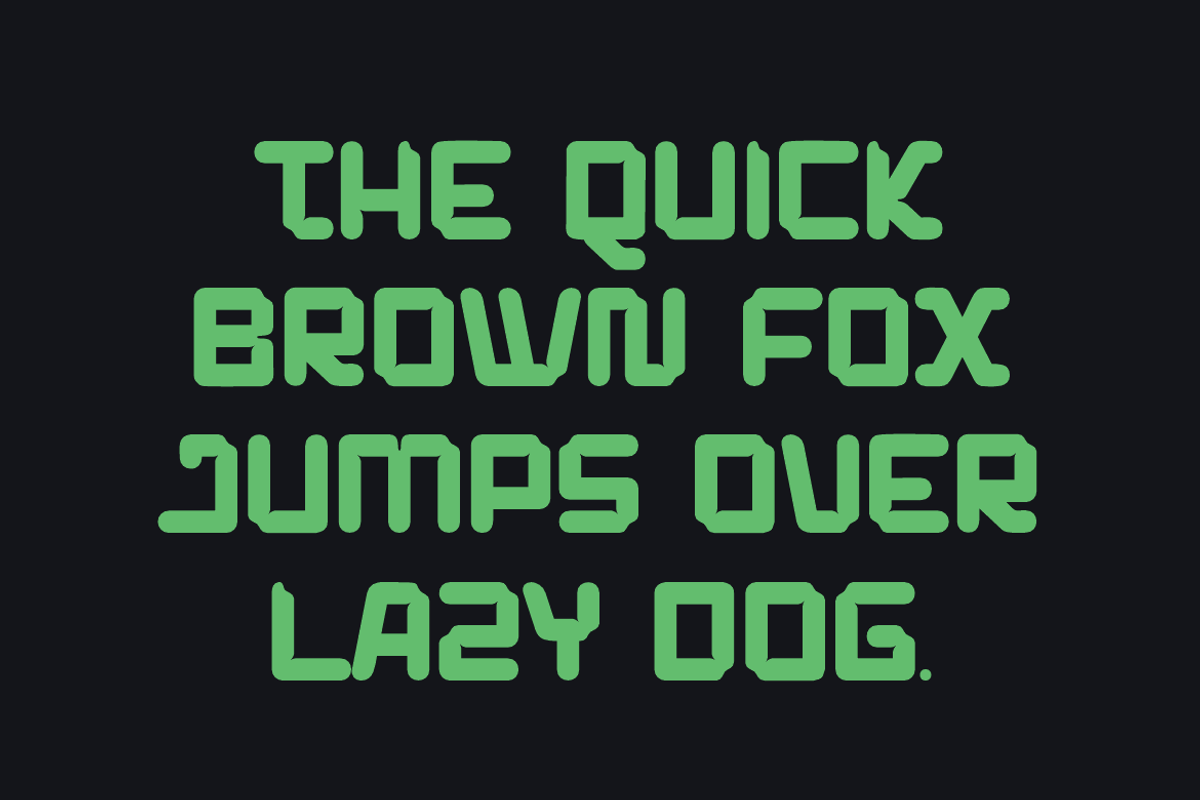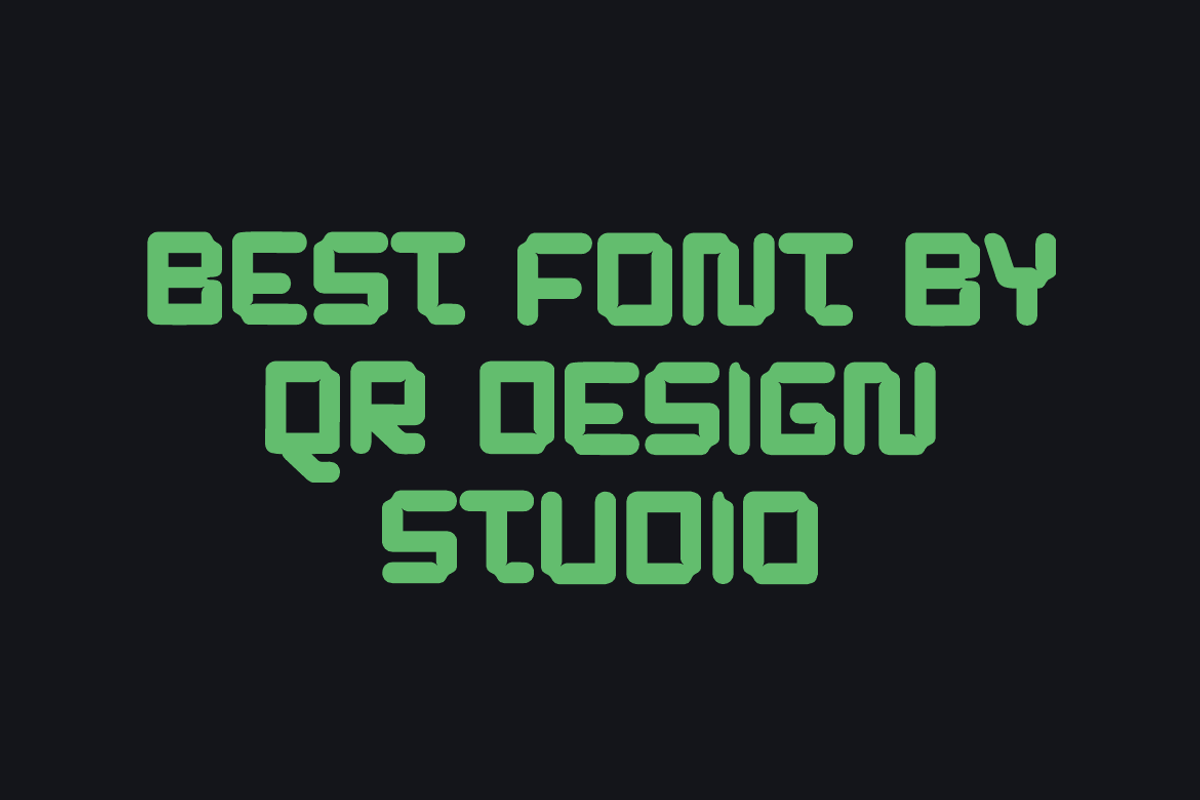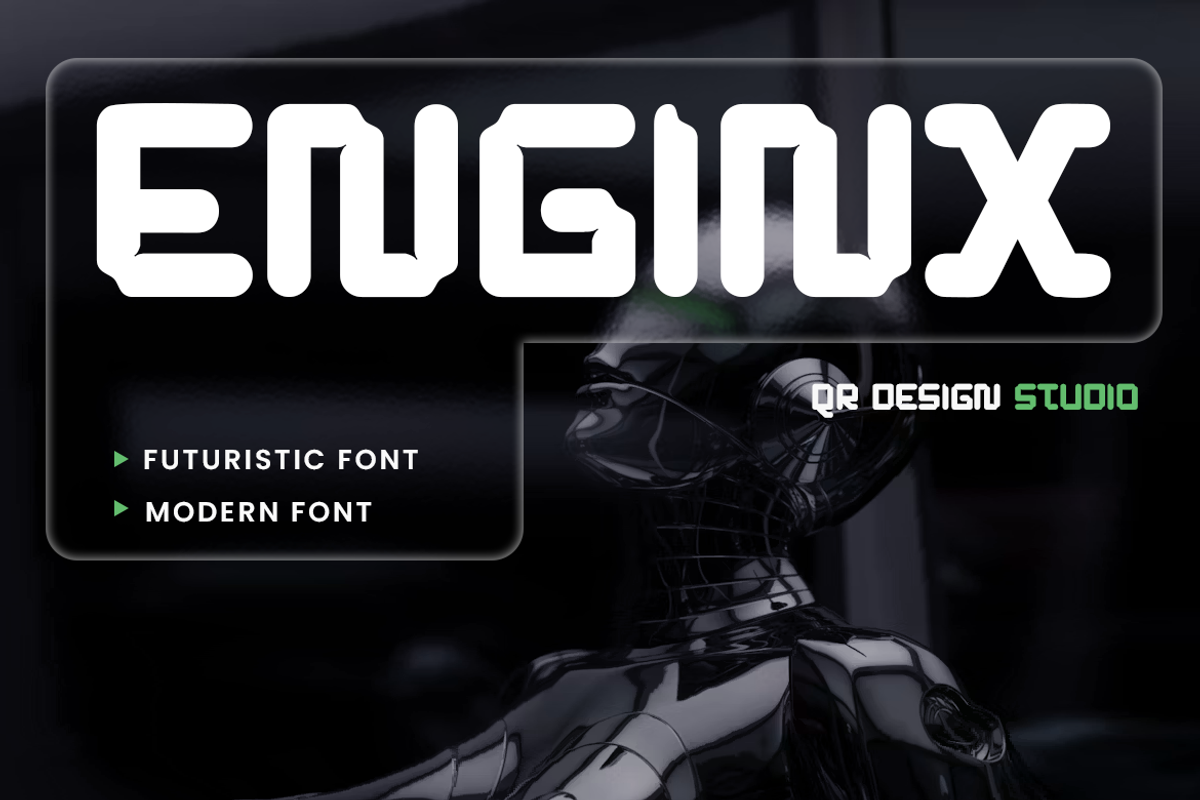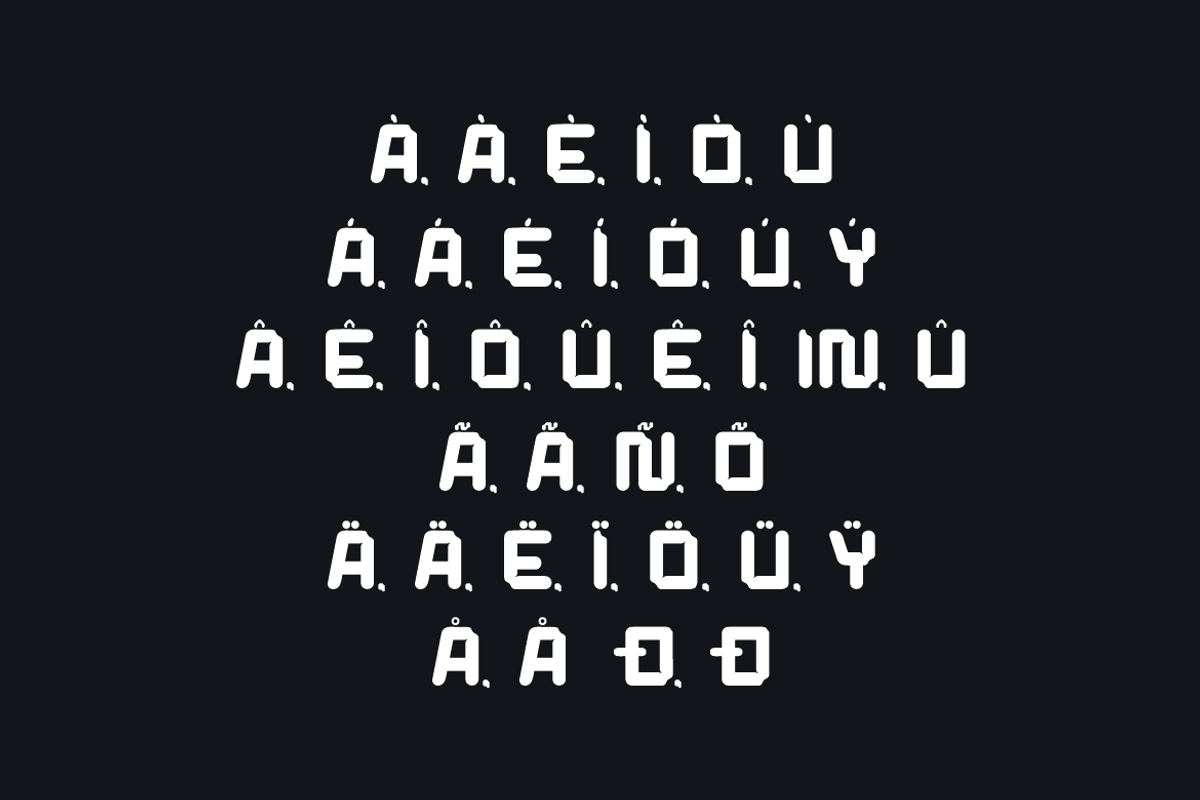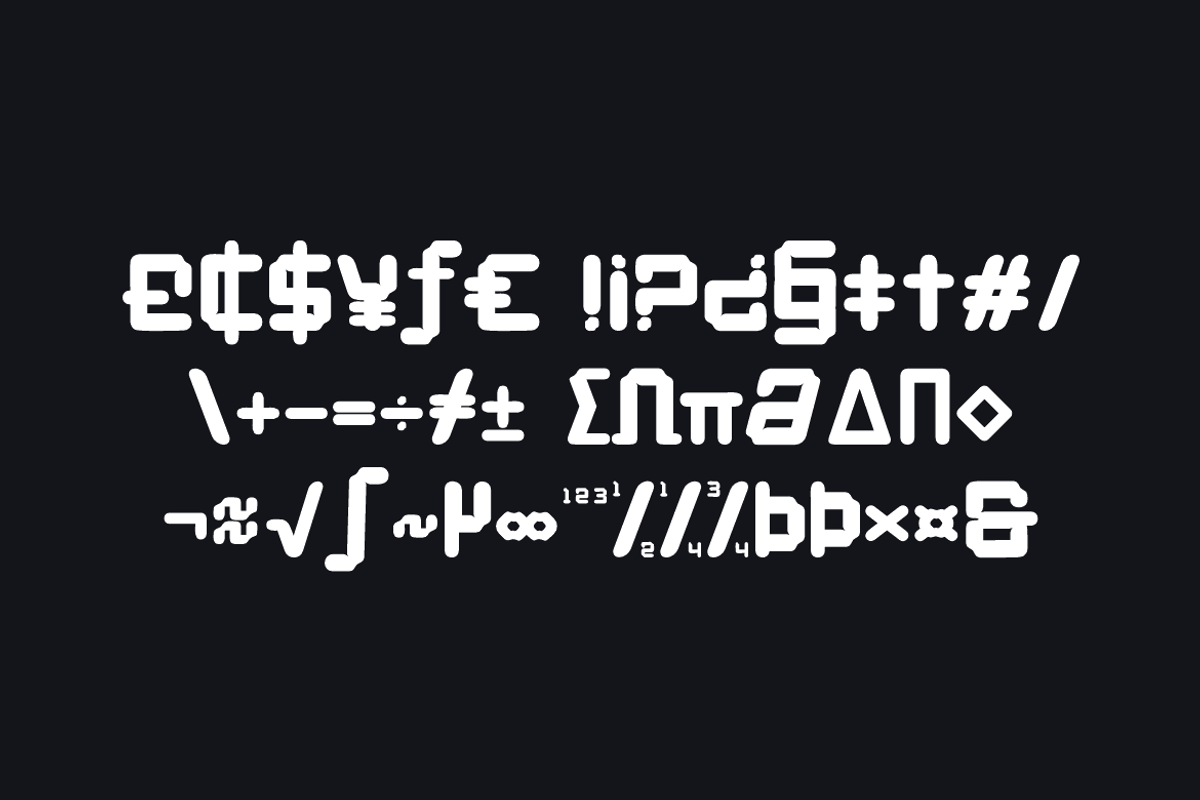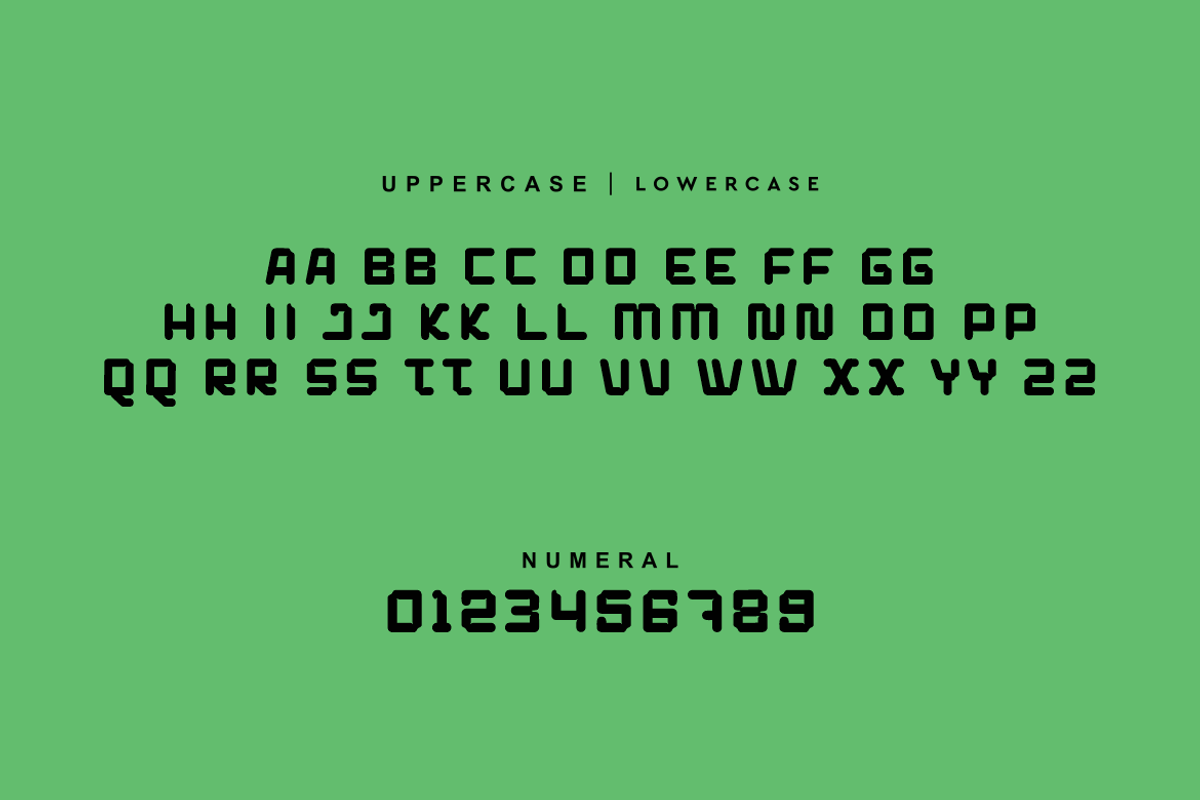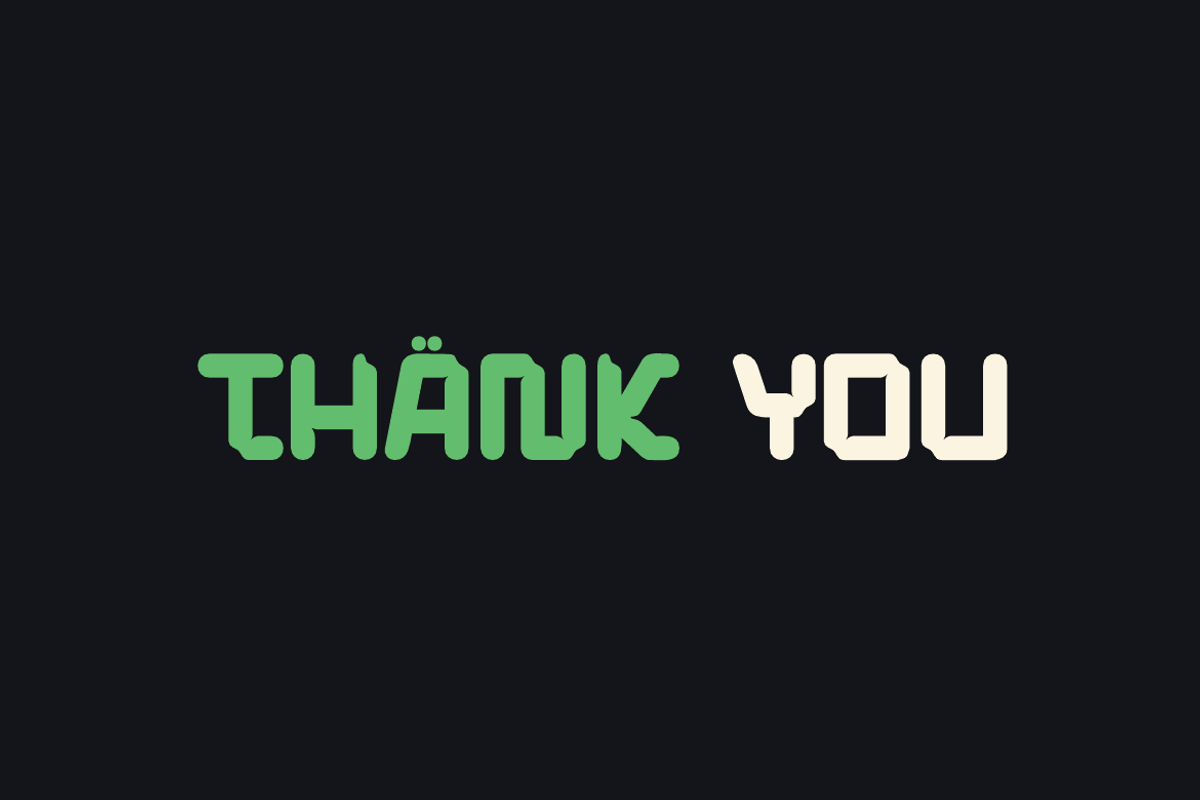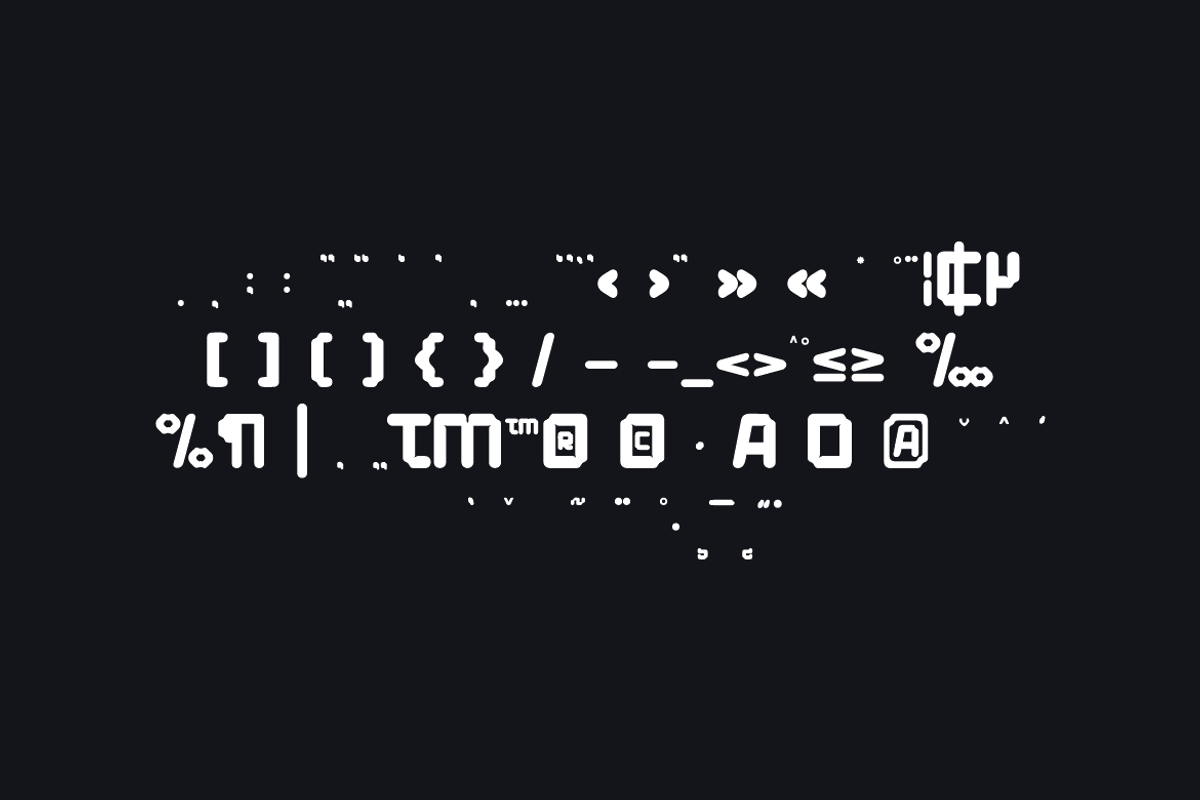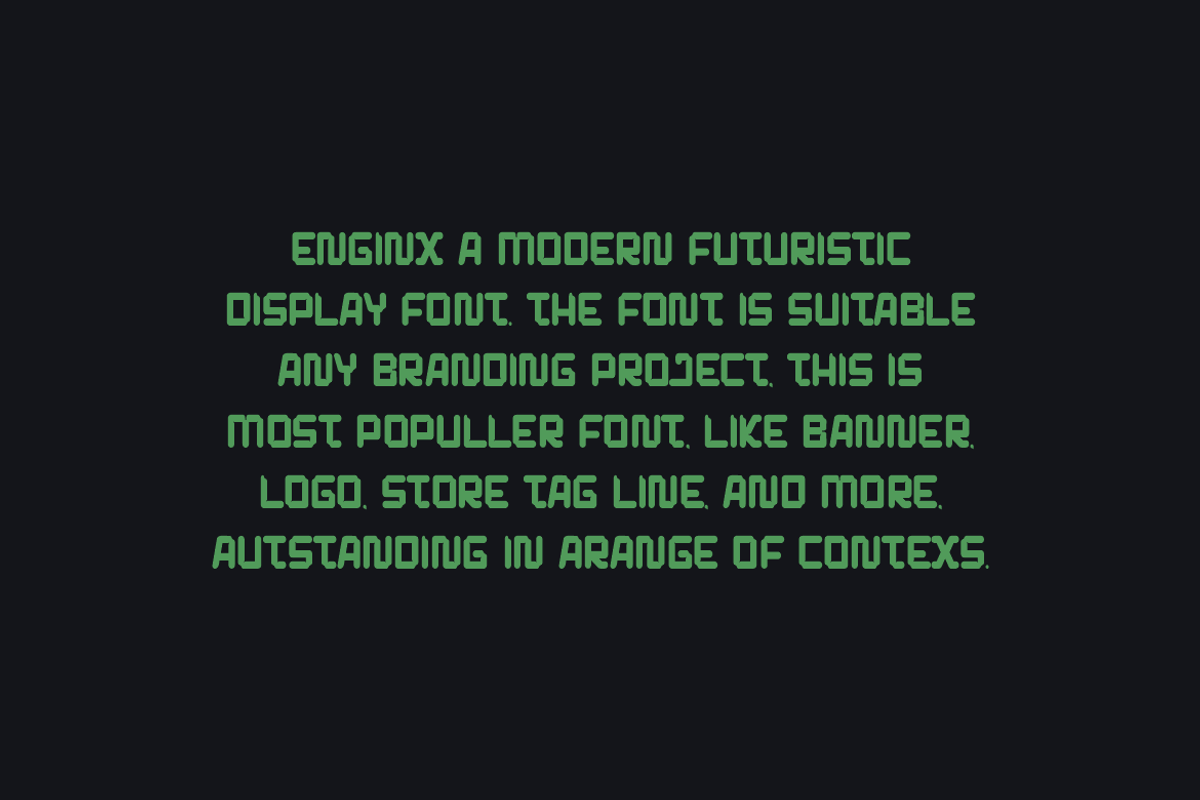
Enginx - Futuristic Font
Enginx Font is a futuristic and authentic display font. The font is suitable for any branding project like poster, logo, sport, and many more. Outstanding in a wide range of contexts.